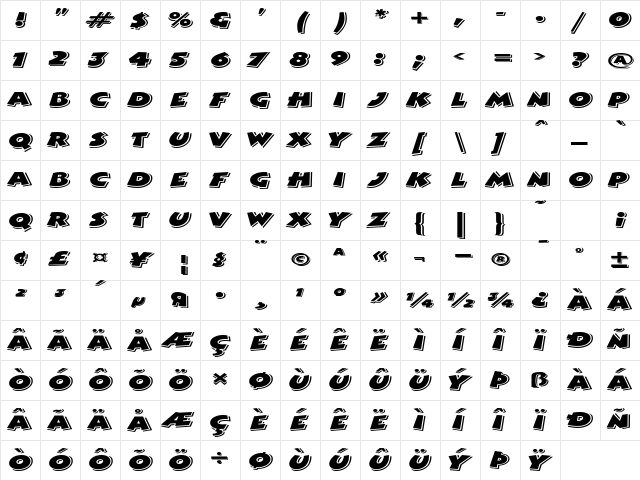
ComicStripExtended Regular
Design Context for ComicStripExtended Typeface
ComicStripExtended has an approachable, lighthearted character — its loose, expressive forms are well-suited to children's content, casual branding, and fun-first design.
Font Pairing: Pairs well with a rounded or humanist sans for body copy, maintaining the friendly tone without relying on ComicStripExtended to carry extended reading.
Pro Tip: Use ComicStripExtended at larger display sizes where its expressive character can land. Pair with a clean, simple sans for body copy to maintain readability.